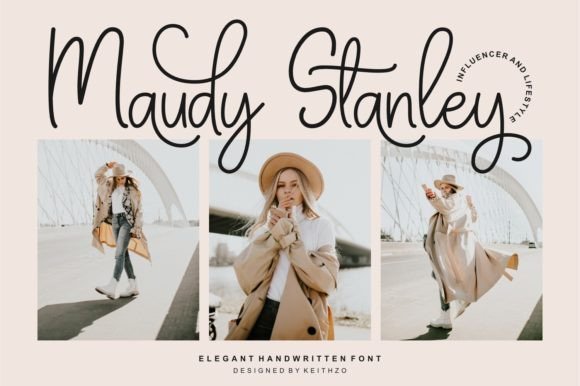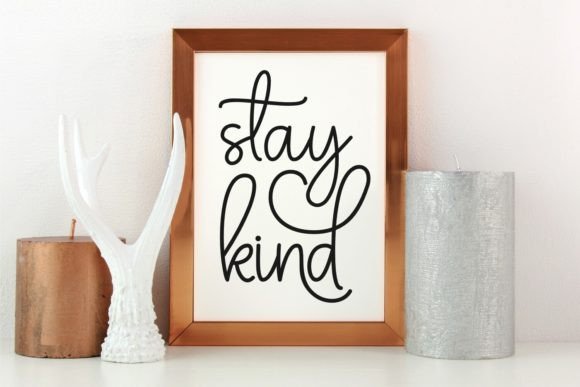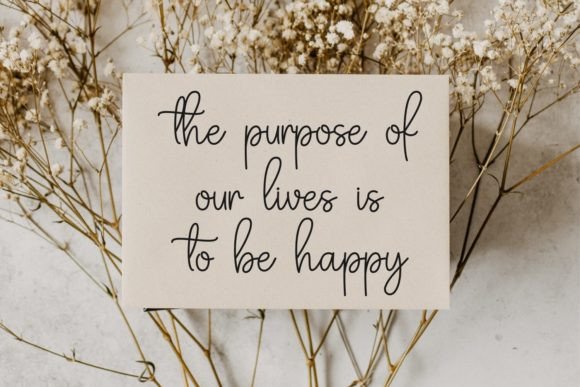
Barbie Style Font
Barbie Style is a delicate and elegant handwritten font. Its distinct and well-balanced letters make this font a masterpiece. Fall in love with its incredibly versatile style and use it to create spectacular designs!